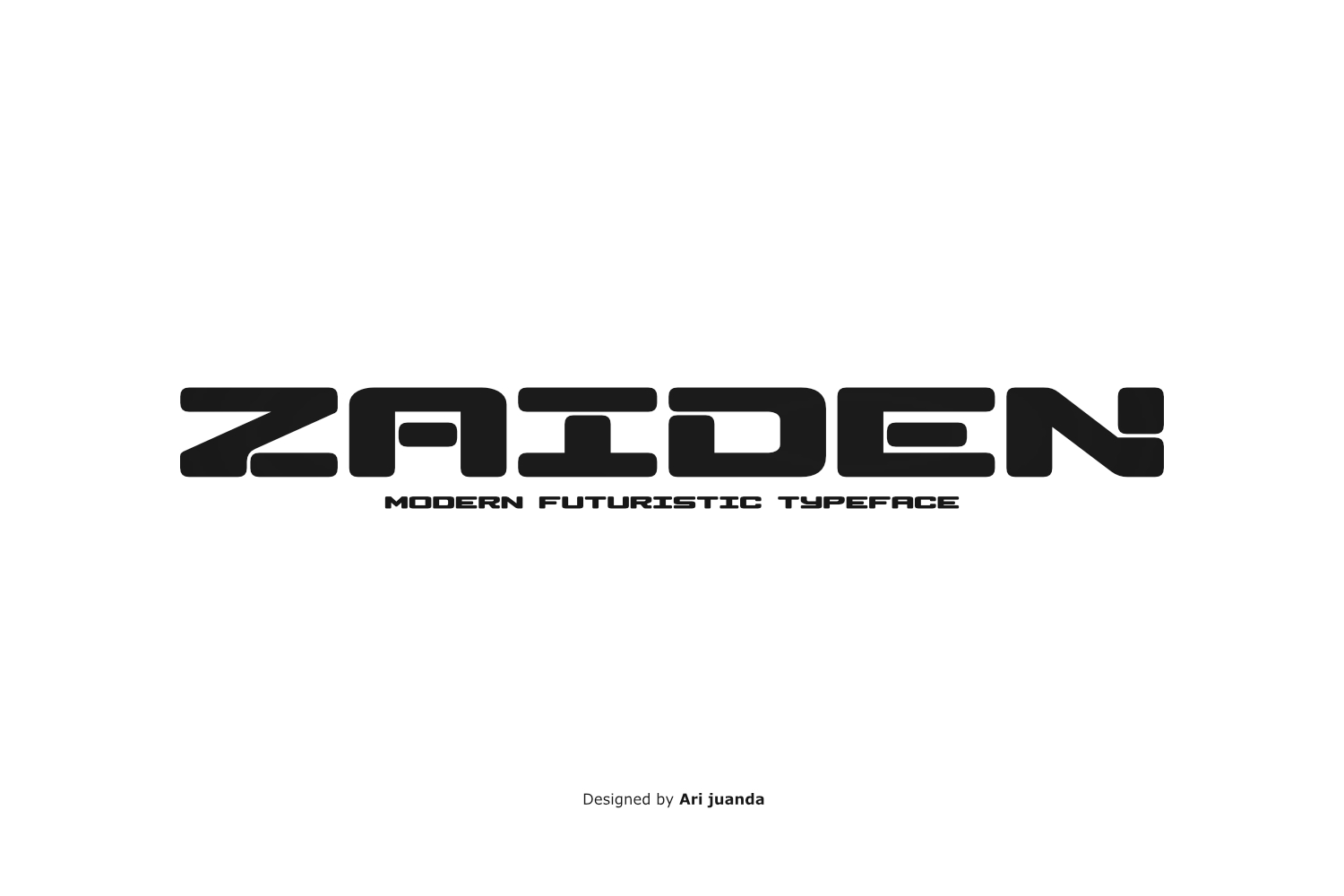
Zaiden Futuristic Rounded Display Font
Zaiden – Futuristic Rounded Display Font
Introducing Zaiden Futuristic Rounded Display Font, a bold and contemporary typeface designed for modern visual projects that need a distinctive technological character. Zaiden combines strong rounded letterforms with precisely cut details, creating a futuristic appearance while maintaining clarity and legibility.
The uppercase letters serve as the primary visual form of Zaiden, featuring bold proportions and rounded shapes that give the typeface a confident and solid appearance. The lowercase characters take a more distinctive approach, with precisely cut details that create an interesting contrast while maintaining the overall futuristic personality of the font.
This combination of bold rounded forms and precisely cut lowercase characters gives Zaiden a unique visual identity. Instead of relying on complicated decorative elements, the design focuses on the construction of the letters themselves. The result is a clean yet distinctive display typeface that can bring a strong personality to contemporary typography.
Zaiden Futuristic Rounded Display Font for Modern Design
Zaiden is built for display typography where the typeface needs to attract attention and establish a strong visual presence. The rounded construction gives the letters a smooth and approachable quality, while the precise cuts add a technological and futuristic edge.
The contrast between the uppercase and lowercase characters is one of the defining characteristics of Zaiden. The uppercase forms provide a strong foundation for headlines and prominent typography, while the specially cut lowercase characters introduce additional personality to compositions.
This makes Zaiden a versatile choice for modern design projects that require a distinctive futuristic rounded style. Its bold forms can work effectively in large typography, while the precise details help create a recognizable visual identity. Designers can use Zaiden when they want typography to become an important part of the overall composition rather than simply supporting other visual elements.
Futuristic Typography with a Technological Character
The visual language of Zaiden is influenced by modern technology and forward-thinking aesthetics. Its bold rounded shapes create a strong presence, while the precisely cut lowercase characters bring an experimental detail to the overall design.
Zaiden Futuristic Rounded Display Font is particularly suitable for projects where typography needs to communicate a modern and innovative feeling. Its distinctive letter construction can add character to titles, headlines, graphic compositions, and visual identities without compromising readability.
Zaiden can be used for gaming graphics, technology projects, branding, logos, posters, headlines, digital designs, promotional graphics, and other contemporary visual projects. Its futuristic character can also work well for creative concepts inspired by digital culture, modern interfaces, entertainment, and emerging technology.
Features
• Bold rounded display letterforms
• Distinctive futuristic aesthetic
• Uppercase letters as the primary visual form
• Precisely cut lowercase characters
• Clear and legible letterforms
Why You’ll Love Zaiden
Zaiden is made for designers who want something more distinctive than a conventional rounded sans serif. Its bold construction provides visual impact, while its precisely cut lowercase characters introduce a futuristic detail that makes the typeface immediately recognizable.
The clean rounded structure makes Zaiden approachable, while the unusual cuts give it a more experimental and technological personality. This balance allows the font to move between bold graphic compositions and more refined contemporary designs.
From gaming and technology-inspired graphics to modern branding and striking display typography, Zaiden brings together rounded forms, bold proportions, and precise geometric details in a single contemporary typeface.
If you are looking for a Zaiden Futuristic Rounded Display Font with a strong technological character and distinctive visual personality, Zaiden offers a modern typographic solution for your next creative project.